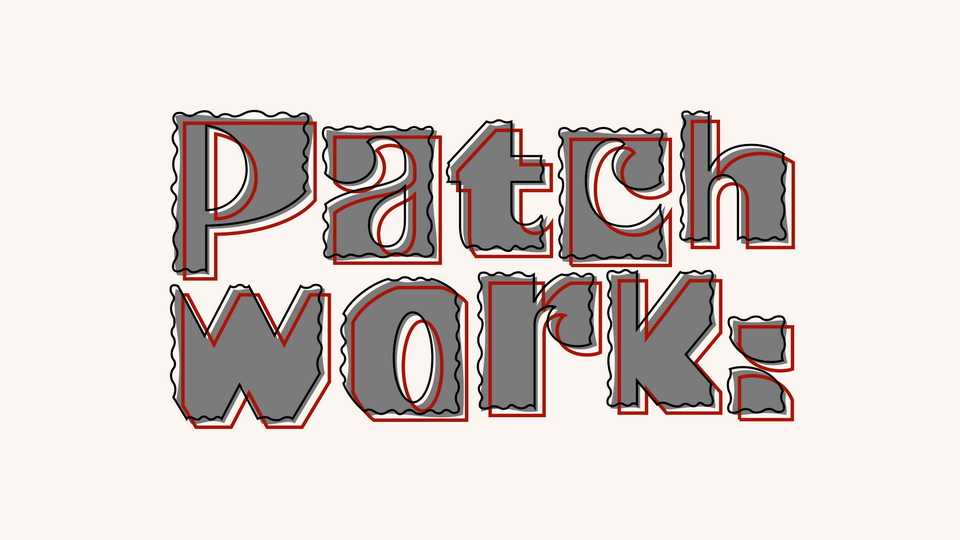
Download Patchwork font, a block-like barely cut display typeface designed for headlines and posters. Patchwork comes in three styles for creating fun and eye-catching typography combination.
Designer: Frank Baranowski